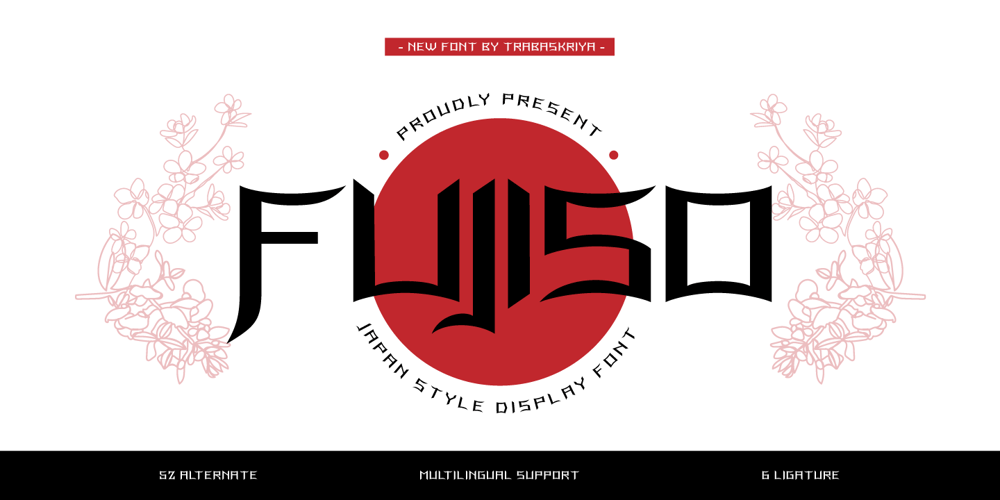
Fujiso Font Family was designed by Murozakul Akhsan and published by Trabas Kriya. Fujiso contains 1 styles and family package options. Fujiso is more than just a font, it’s an experience. This Japanese style font captures the elegance and simplicity of Japanese design, bringing a touch of the East to your designs. Its clean, minimalist characters are perfect for creating designs with a Japanese aesthetic, whether it’s a sushi restaurant menu or a zen-inspired logo. With Fujiso, you’re not just designing, you’re transporting your audience to another world.What’s Included:- All glyphs and Feature- We highly recommend using a program that supports OpenType features and Glyphs panels like many Adobe apps and Corel Draw so that you can see and access all Glyph variations.- PUA Encoded Characters, Fully accessible without additional design software.- Fonts include Multilingual: Support for 85 languages. Afrikaans, Albanian, Asu, Basque, Bemba, Bena, Breton, Catalan, Chiga, Cornish, Croatian, Czech, Danish, Dutch, Embu, English, Esperanto, Estonian, Filipino, Finnish, French, Friulian, Galician, Gusii, Hungarian, Indonesian, Irish, Italian, Kabuverdianu, Kalenjin, Kamba, Kikuyu, Kinyarwanda, Latvian, Lithuanian, Lower, Sorbian, Luo, Luxembourgish, Luyia, Machame, Makhuwa-Meetto, Makonde, Malagasy, Maltese, Manx, Meru, Morisyen, North, Ndebele, Norwegian Bokmål, Norwegian Nynorsk, Nyankole, Oromo, Polish, Portuguese, Quechua, Romanian, Romansh, Rombo, Rundi, Rwa, Samburu, Sango, Sangu, Scottish, Gaelic, Sena, Serbian, Shambala, Shona, Slovak, Slovenian, Soga, Somali, Spanish, Swahili, Swedish, Swiss German, Taita, Teso, Turkish, Upper Sorbian, Uzbek (Latin), Volapük, Vunjo, Walser, Zulu.